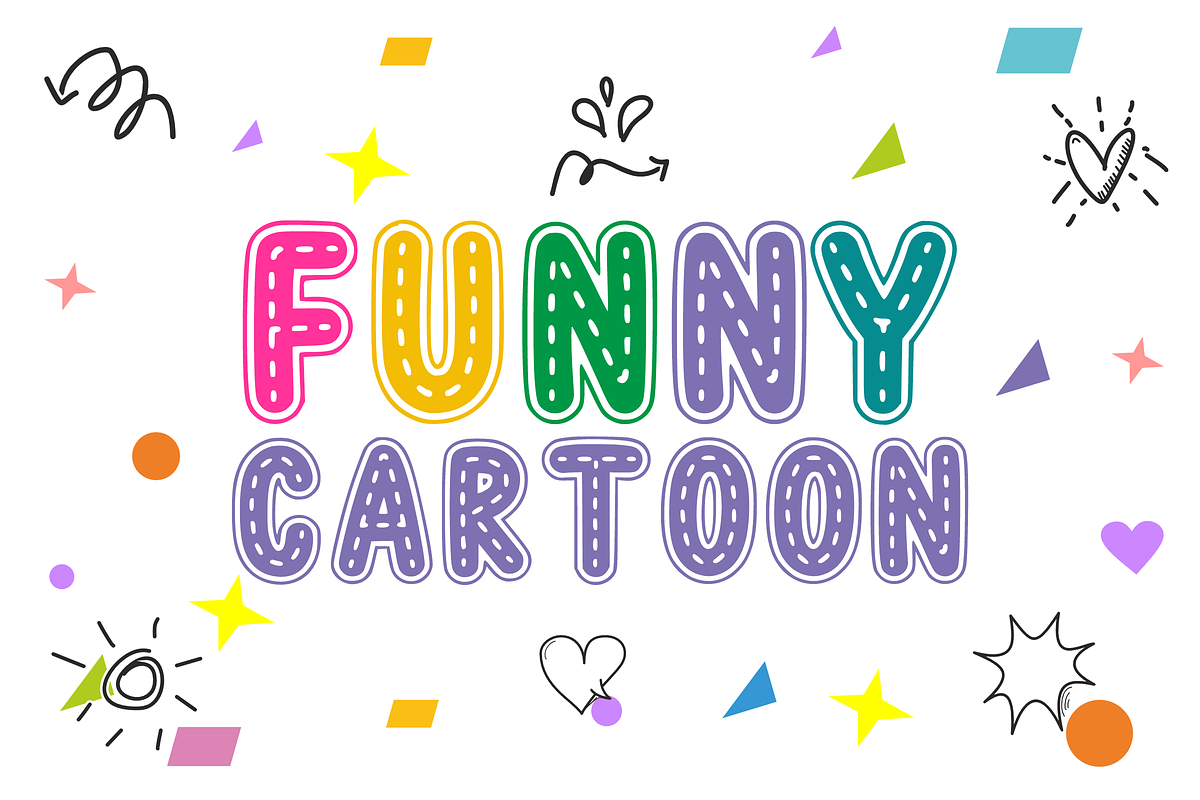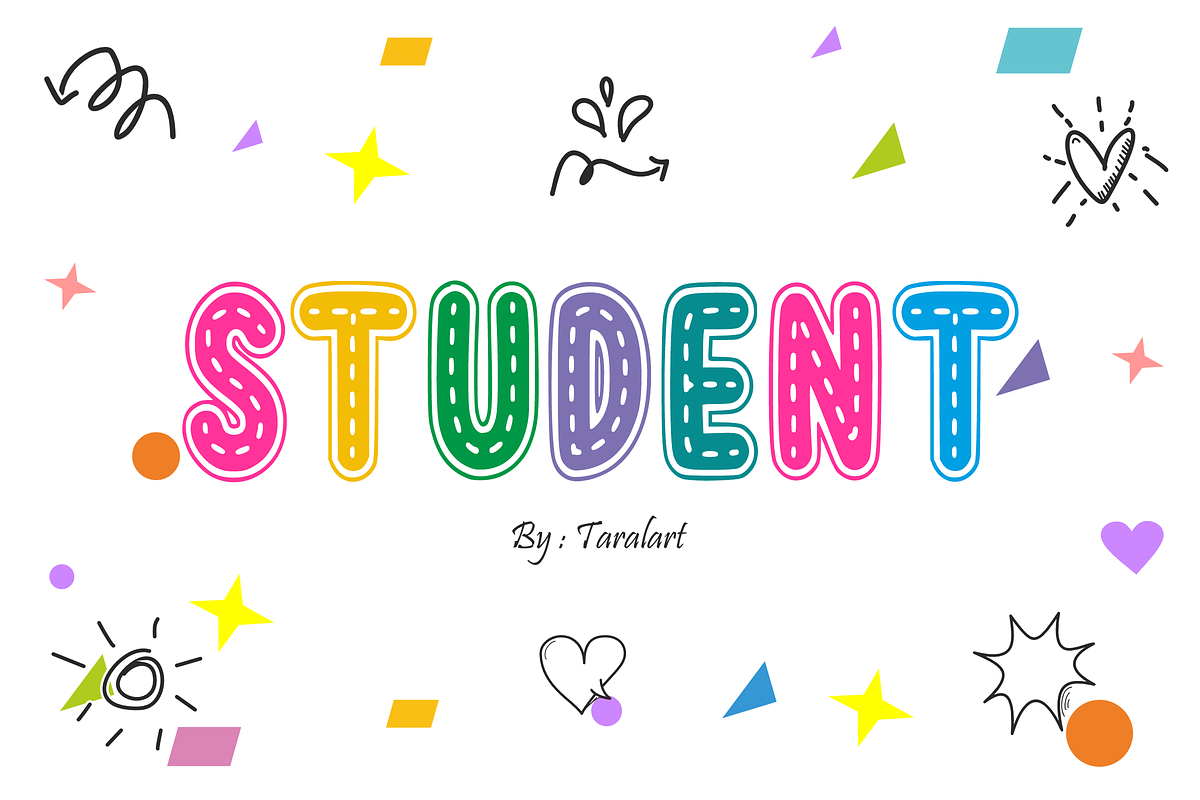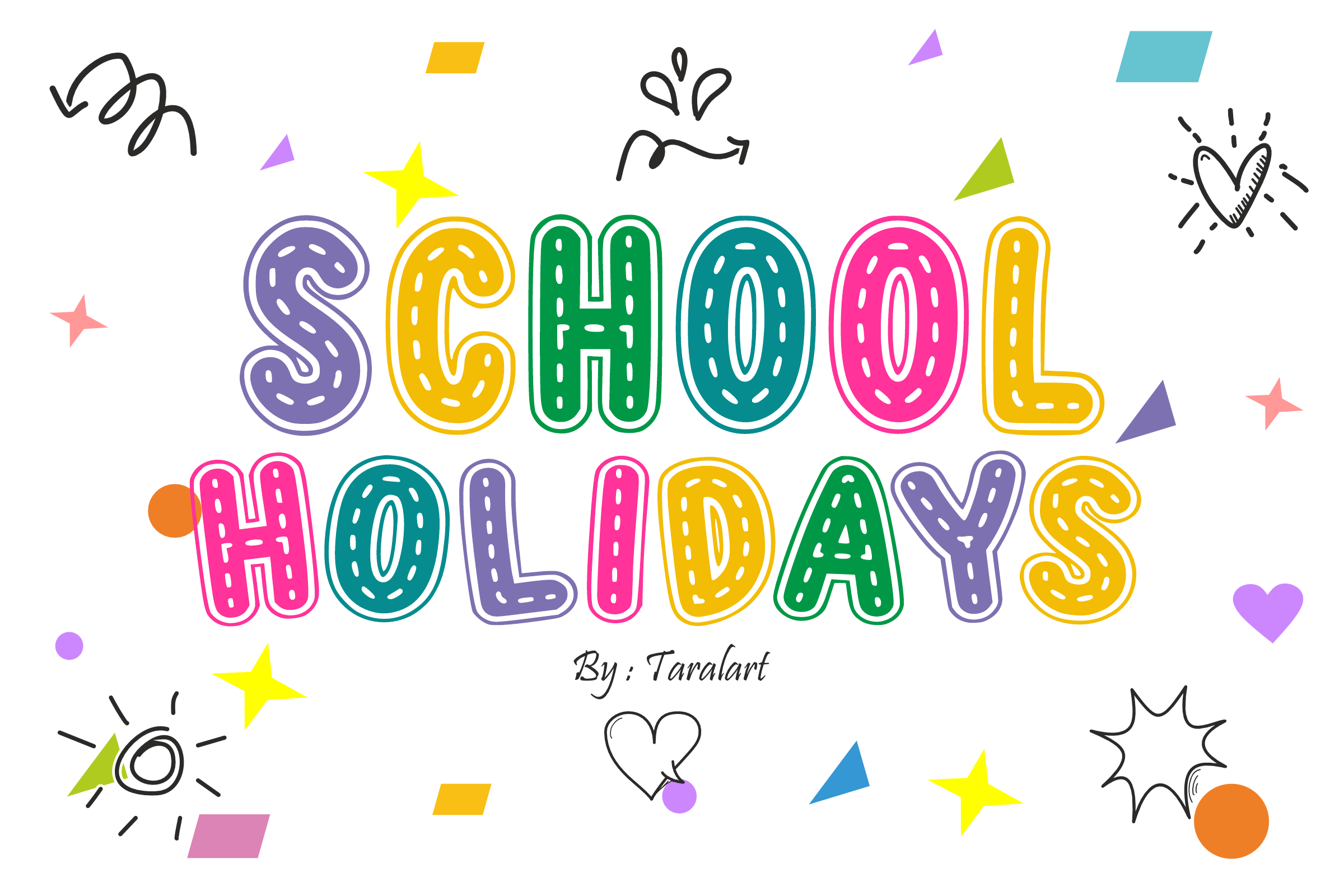
School Holidays - Playful Font
Celebrate creativity with School Holidays! As seen in 1_15.jpg, this bold, cheerful display font features a delightful hand-stitched inner dashed line that brings instant texture, warmth, and a festive vibe to any layout. It’s the ultimate choice for making your school-themed projects, kid crafts, and seasonal headlines look incredibly happy and eye-catching.
Perfect for teacher resources, holiday branding, and trend-focused crafting, School Holidays masterfully combines a whimsical classroom aesthetic with outstanding legibility. It is highly versatile, deeply expressive, and fully optimized for flawless performance across premium digital cutting tools and professional print setups.
All-Caps Character Set (Chunky uppercase letters with a unique stitched dashed design)
Numbers & Basic Punctuation (Essential, simple symbols included)
Teacher Resources, Classroom Decor, & Back-to-School Projects ✏️
Children's Book Covers, Holiday Activity Sheets, & Summer Camp Posters 📚
Cricut, Silhouette, & DIY Fun Craft Sublimation Designs ✂️
Kids Birthday Invitations, Festive Party Banners, & Cute Stationery 🎈
Custom Die-Cut Stickers, Playground Apparel Prints, & Whimsical Merch 👕
High-Impact YouTube Thumbnails, Playful Logos, & Social Media Layouts ✨